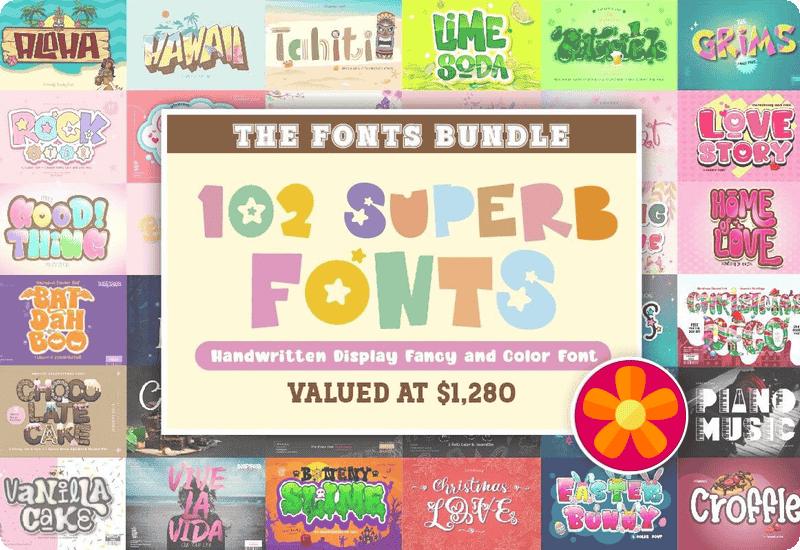
Why Fonts Are So Cool!
Have you ever thought about how fun it is to write with different letters? Fonts are like clothes for your words! Some fonts make your words look happy, some make them look fancy, and some even make them look like they belong in a video game!
For example, if you’re writing “Happy Birthday,” you might want to use a font that looks bubbly and colorful. But if you’re writing “I love you,” you might choose a font that’s all soft and curly. Every font tells its own little story!
Now, imagine having 102 of these cool fonts to play with! Sounds fun, right? Let’s take a closer look at what you’ll get in this bundle.
Let’s Explore the Fun Fonts in the Superb Fonts Bundle!
This font bundle is like a big box of crayons – there’s something for everyone! You’ll find colorful fonts, fancy fonts, and silly fonts. Let’s break it down.
Color Fonts to Brighten Your Day
Imagine writing your name with letters that look like candy or stars! These color fonts are just like that. They’re not just normal letters – they come in fun colors and shapes. Here are a few you’ll get:
- Candy Pop Color Fonts – Letters that look like delicious candy!
- Game Over Color Fonts – Perfect if you love video games.
- Christmas Love Script & Handwritten Font – For when you want your words to feel like a warm hug during the holidays.
These color fonts will make your projects look super fun and exciting, like a party on paper!
Script Fonts for Fancy Writing
Want to write something that looks all fancy and swirly? Script fonts are here to save the day! These fonts look like handwriting, but the kind of handwriting you’d see in a fairy tale.
- Star Light Script & Handwritten Font – This one shines as bright as a star!
- Spring Script & Handwritten Font – It’s soft, pretty, and perfect for springtime projects.
- Moment in Love Script & Handwritten Font – Great for love notes or wedding invitations.
When you use these fonts, it feels like you’re writing with a magic wand. Every letter becomes a beautiful swoosh!
Decorative Fonts That Make You Smile
Sometimes, you want your words to be fun and playful, almost like a cartoon! That’s where decorative fonts come in. They’re full of personality, and each one feels like a character from your favorite storybook.
- Chewy Brownies Script & Handwritten Font – It’s as yummy as it sounds. Perfect for anything sweet!
- Monster Eye Display Font – Boo! This one’s spooky and silly, great for Halloween!
- Mushroom Display Font – This font feels like it came straight from a magical forest.
Decorative fonts make your words pop off the page and bring a smile to anyone who sees them.
Summary